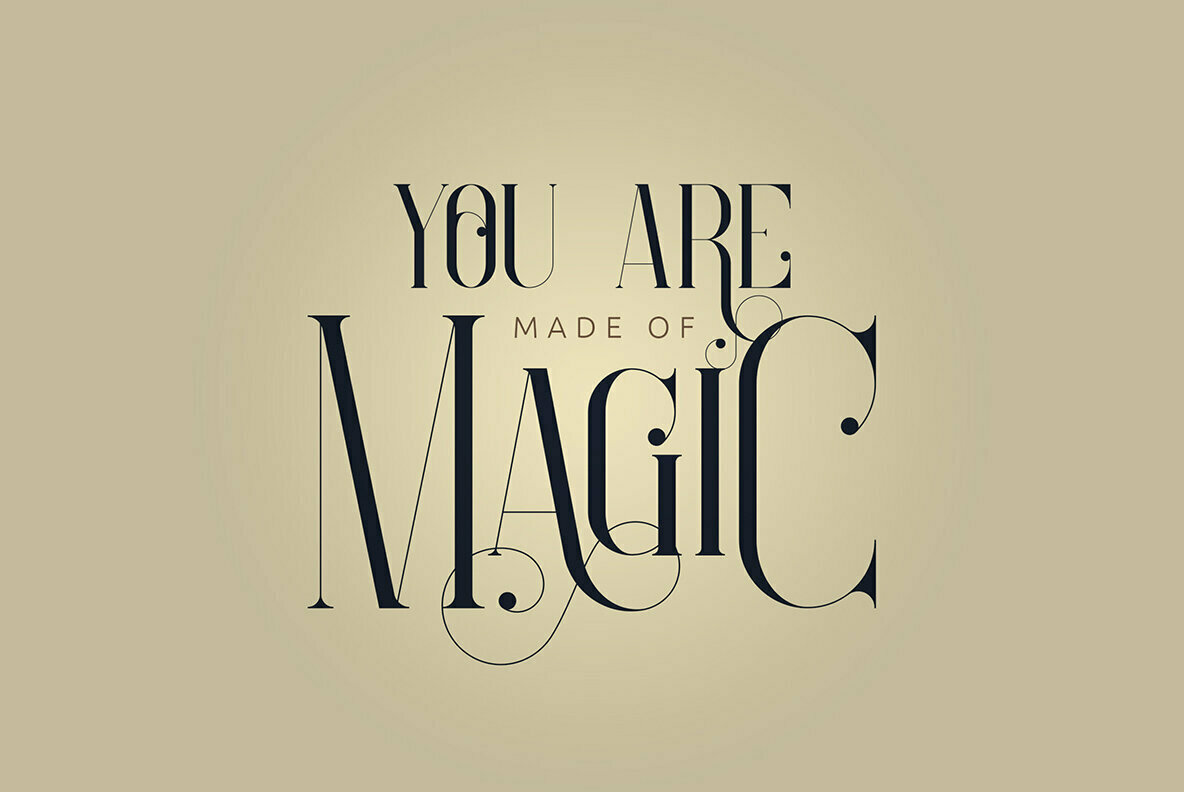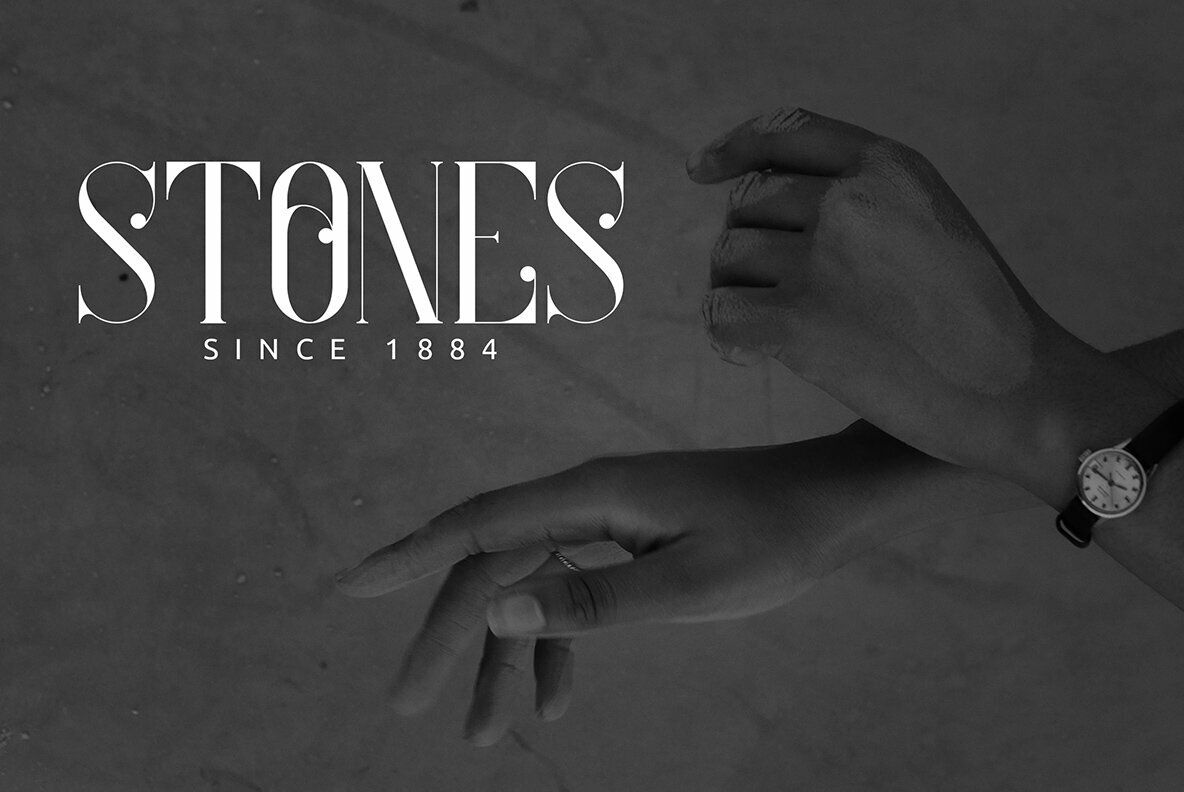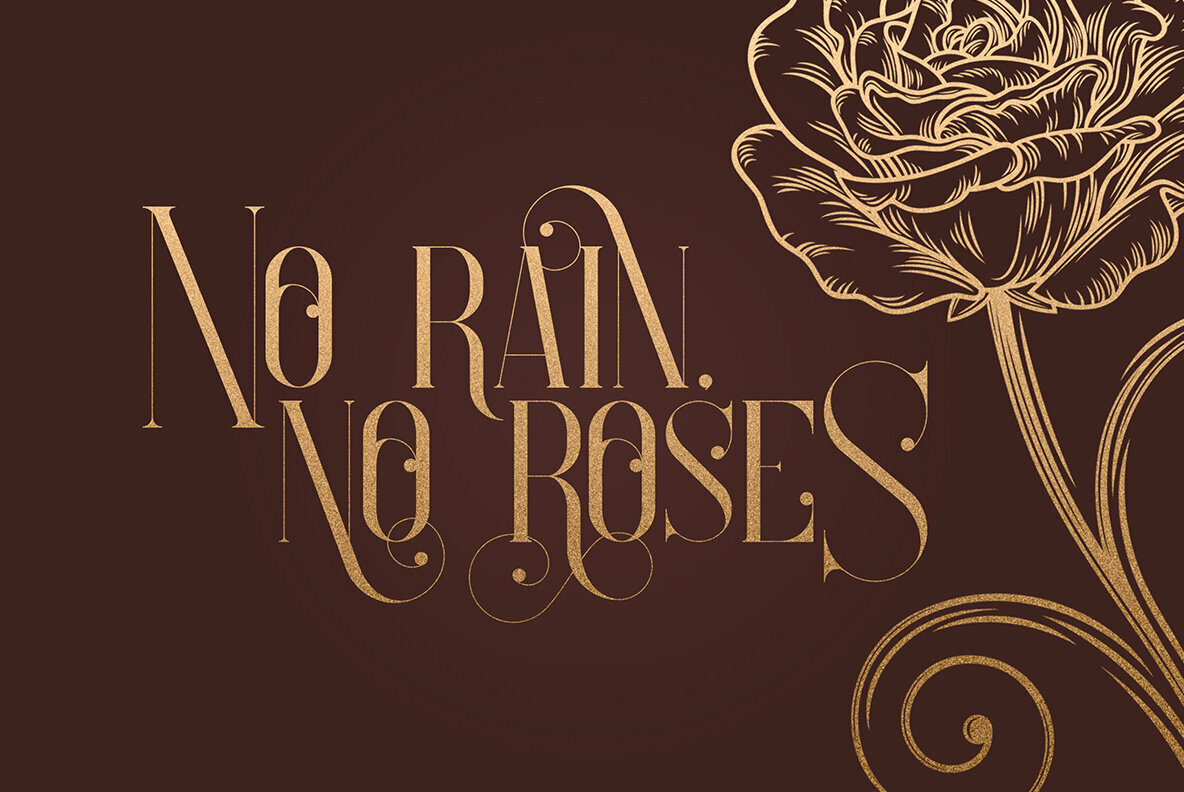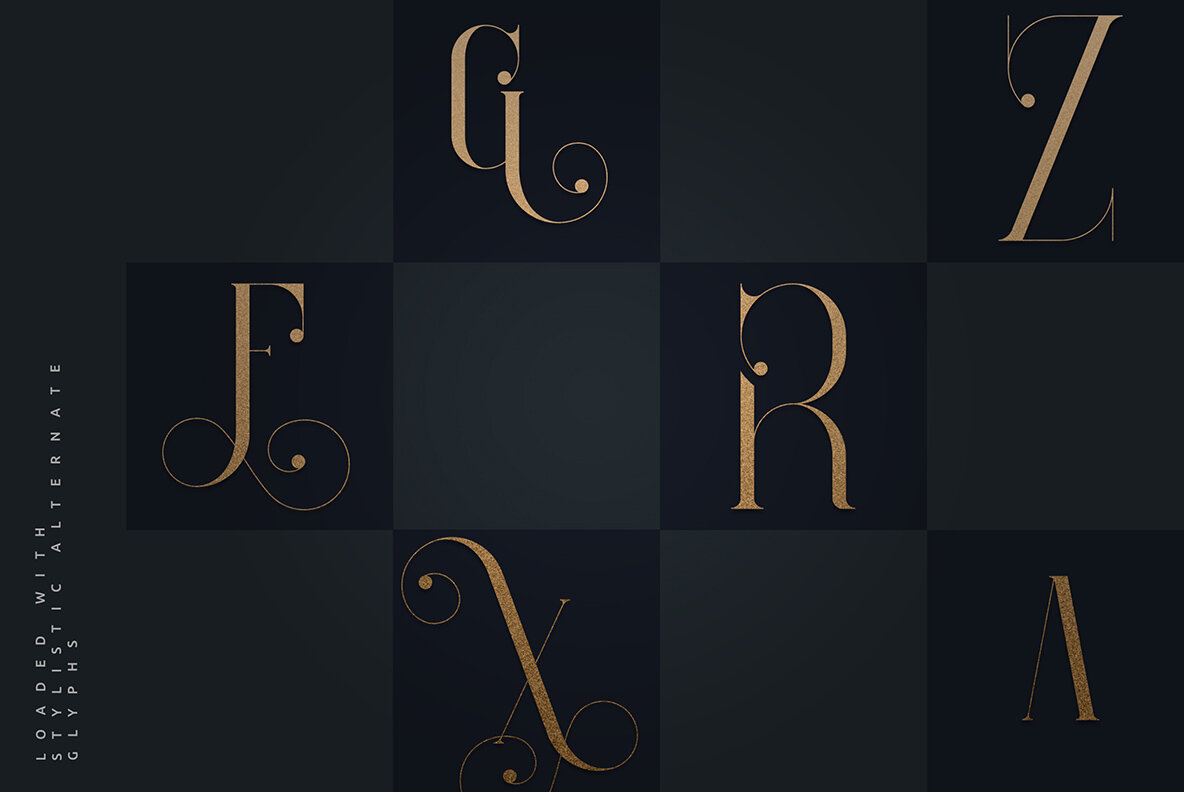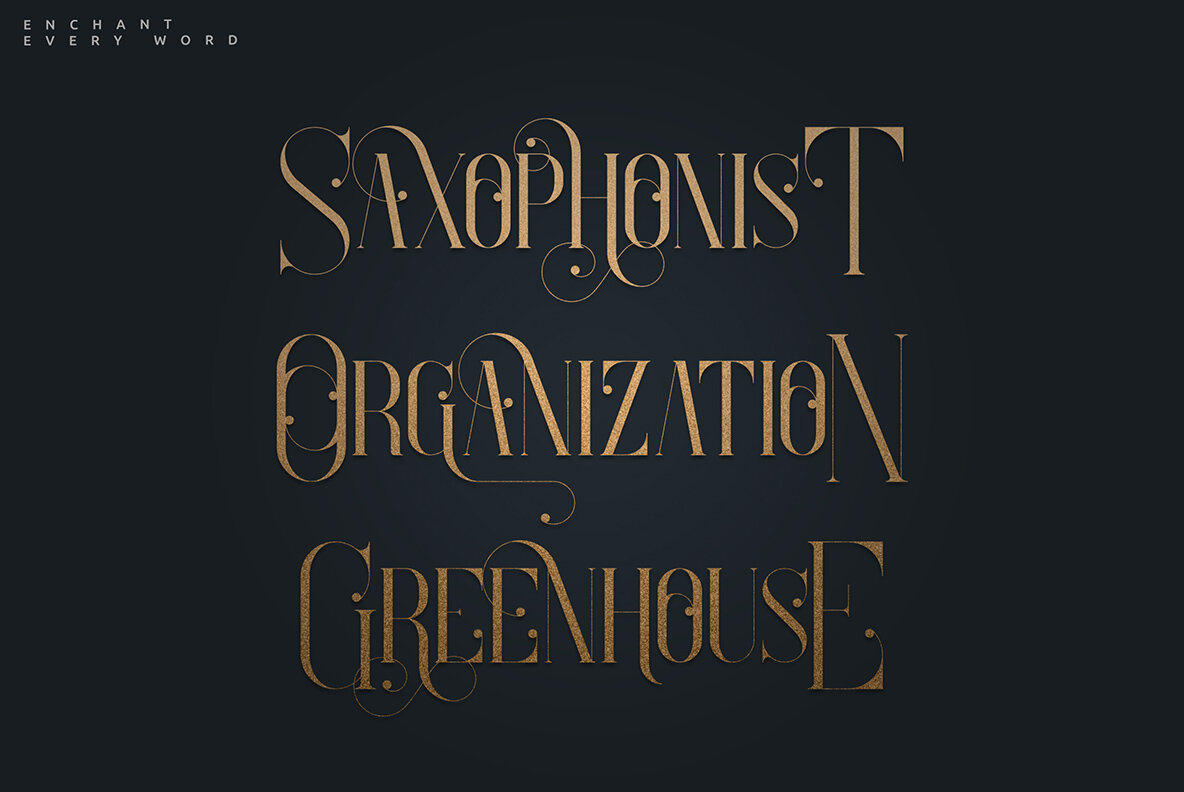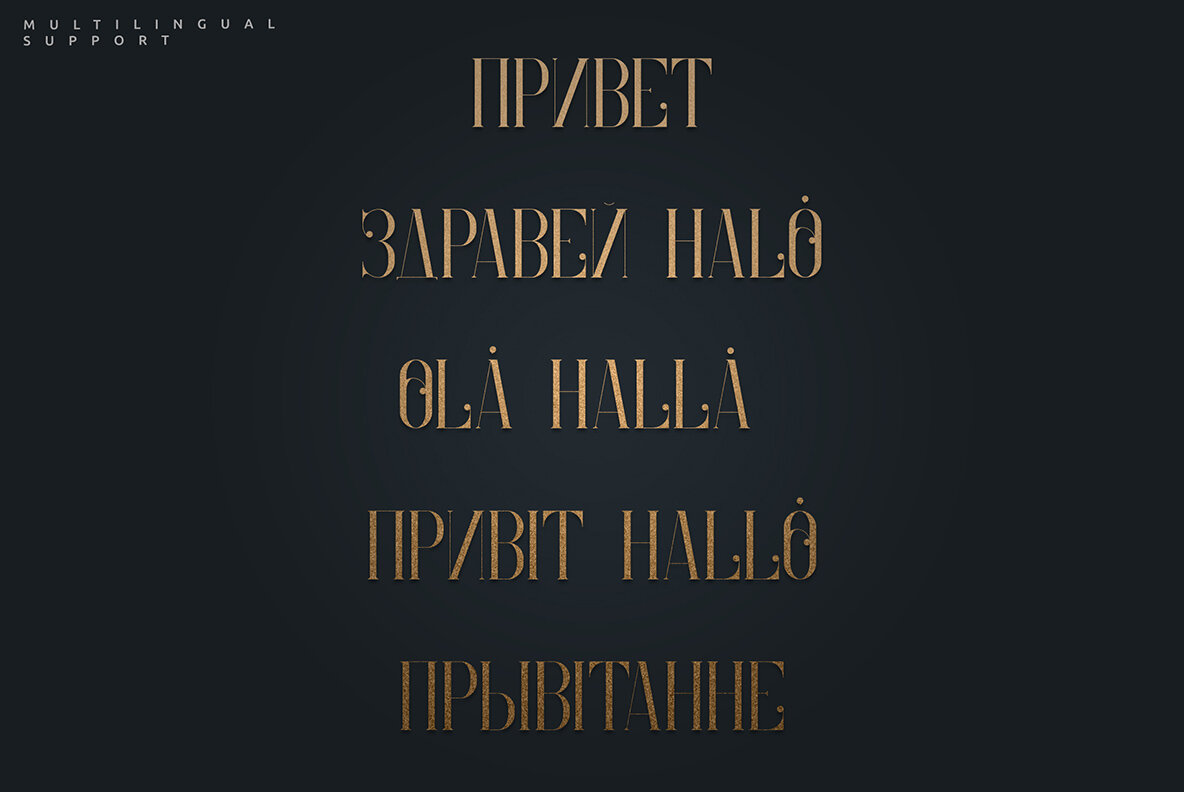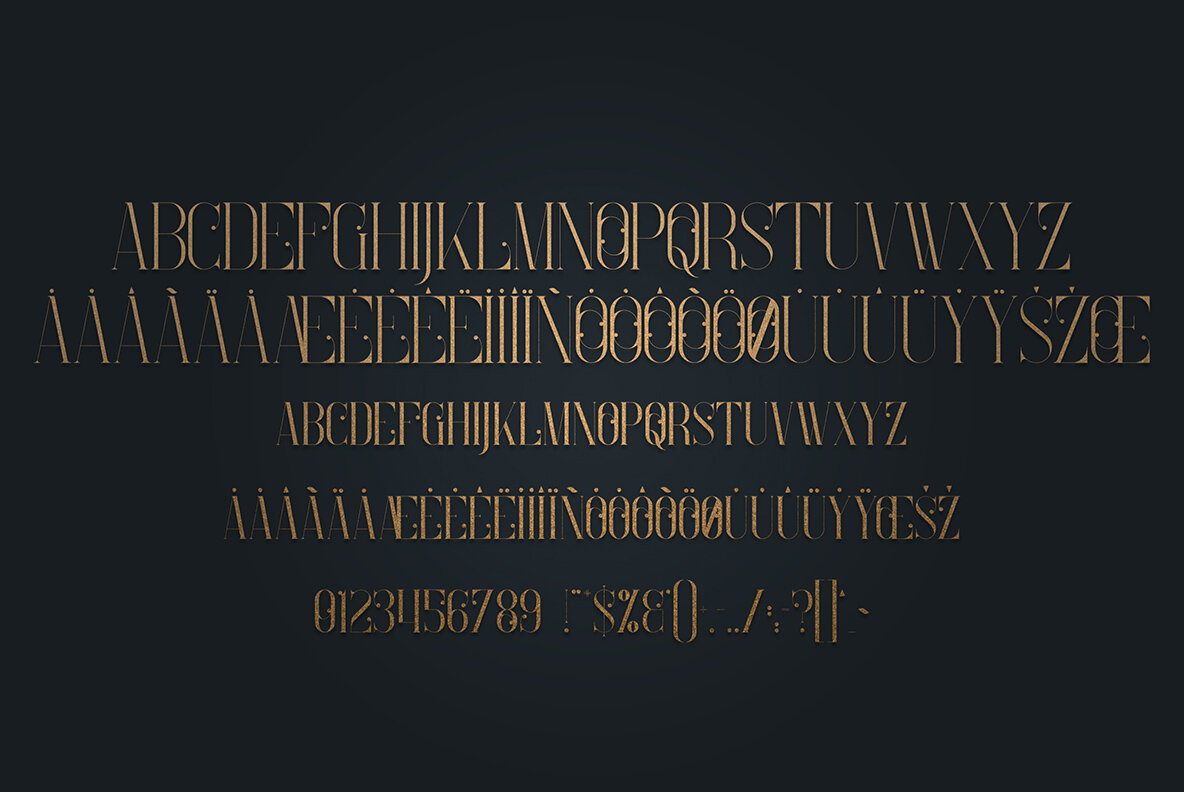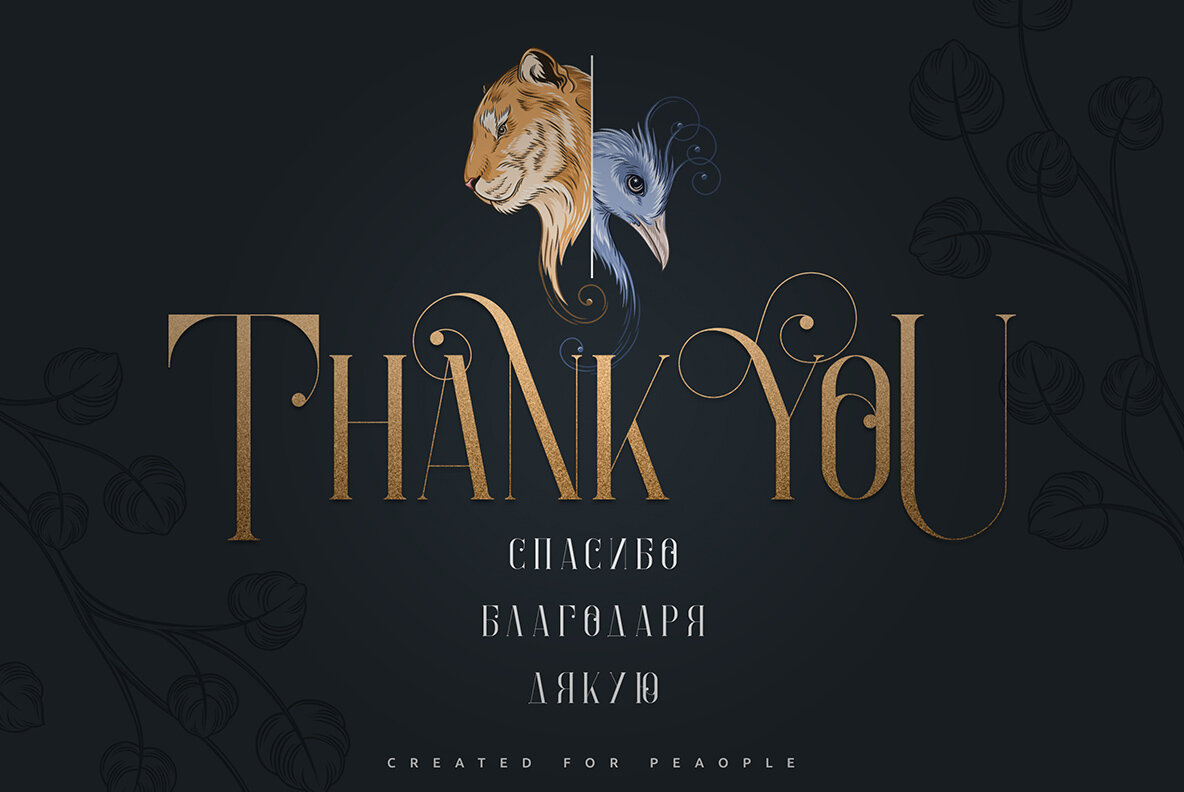
Enchants Font
Enchants is a clean and vintage-inspired font offering comprehensive Latin and Cyrillic support. This versatile typeface is enriched with alternate glyphs and graphic assets, making it an ideal choice for a variety of creative projects. Whether used in large-scale or smaller formats, Enchants consistently delivers a high-quality aesthetic. Perfect for a range of applications, Enchants excels in branding projects, homeware designs, and product packaging. It's also well-suited for magazine headers and as a chic text overlay on any background image, seamlessly blending style with functionality.Enchants: A Vintage Font with Latin and Cyrillic Versatility